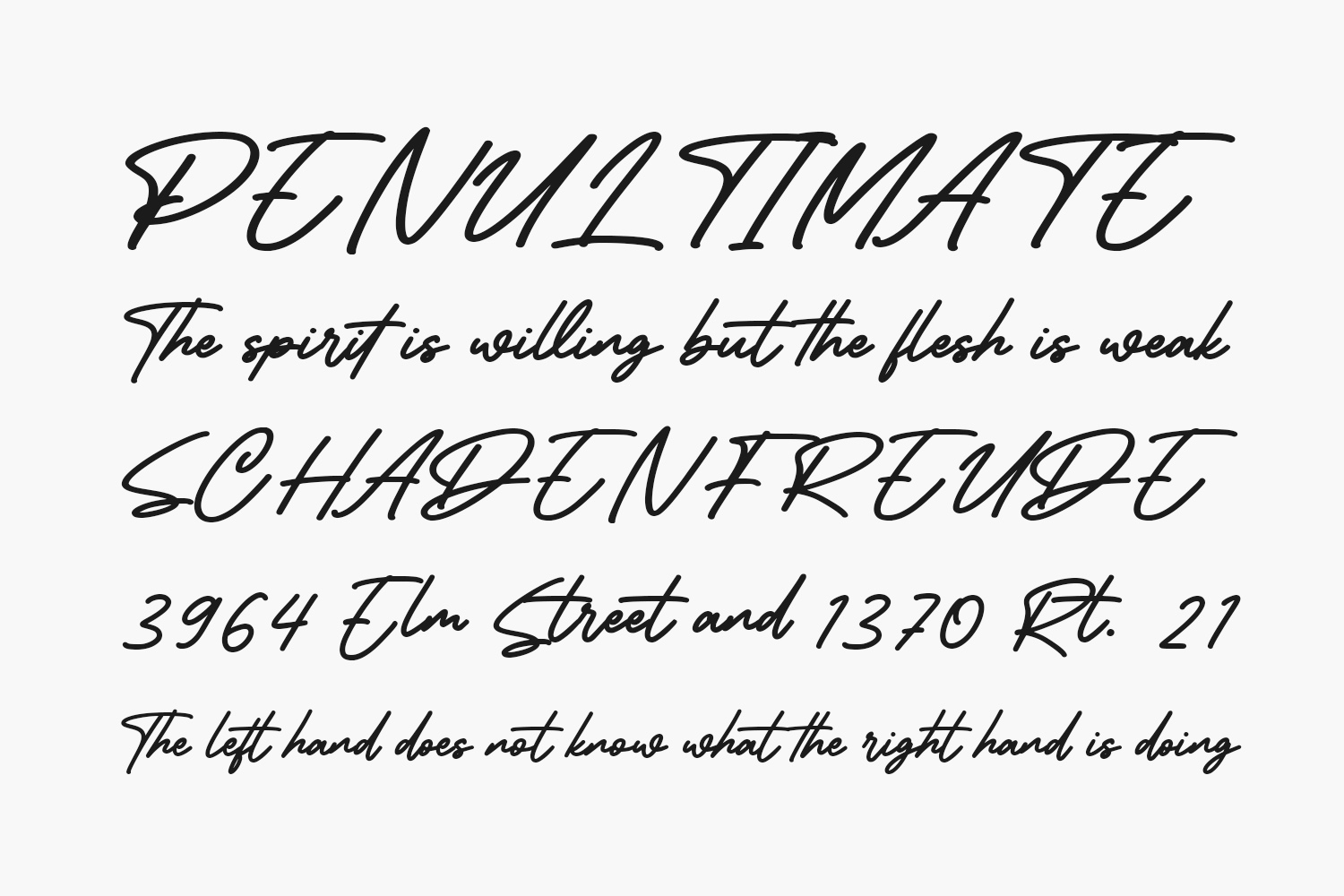
Botanity Free Font is a lovely and delicate script font that exudes elegance and class. This font was particularly crafted for those who need a beautiful and refreshing look to their designs. Botanity Free Font was designed by Maulana Creative and is free for personal use only. Please purchase the full version for commercial use.